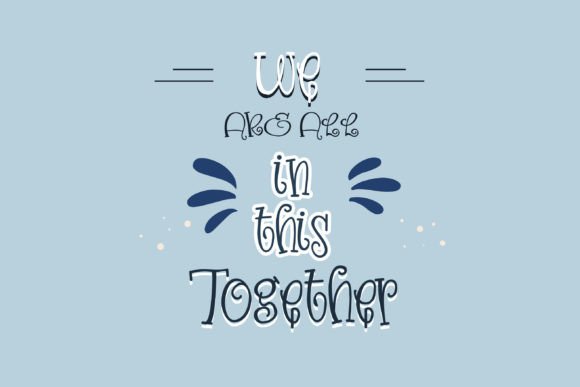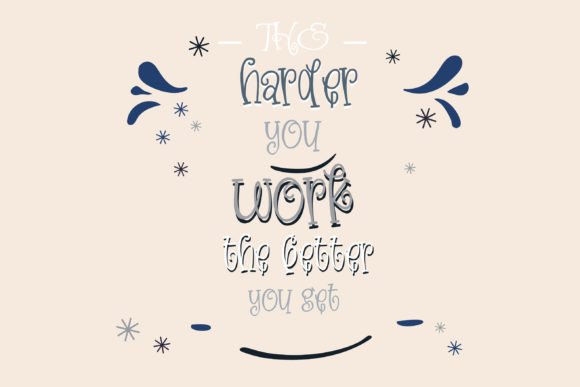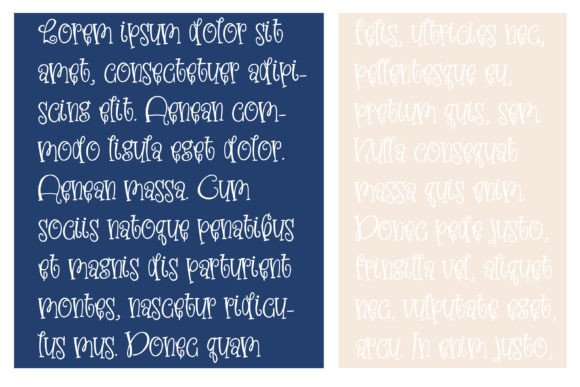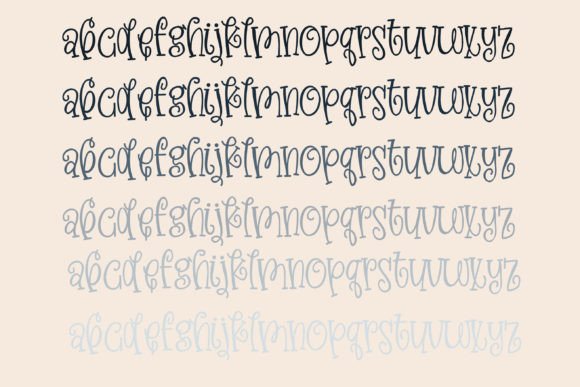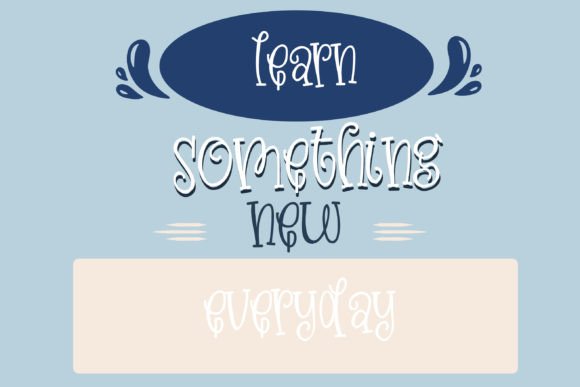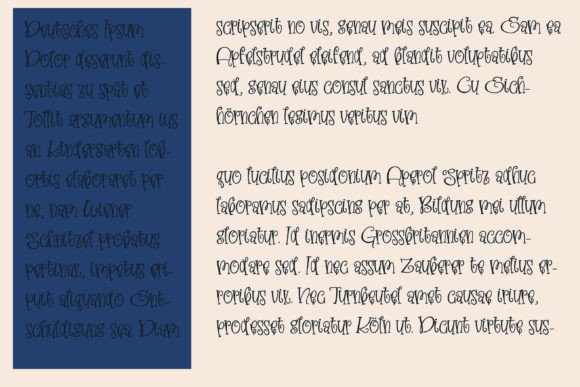
Aphantic Font: A Fun and Whimsical Hand-Crafted Serif for Designers and Crafters
Are you tired of using the same old fonts for your designs and crafts? Look no further than the Aphantic Font, a hand-crafted serif that’s sure to add a touch of whimsy and fun to your projects. In this article, we’ll take a closer look at what makes this font so special, and how you can use it to take your designs to the next level.
A hand-crafted font is a font that is designed to look like it was written by hand. It’s a type of font that’s often used for invitations, greeting cards, and other items where a personal touch is desired. Handwritten fonts can be either formal or informal, and they can be used for a variety of purposes. They add a level of warmth and personality to a design that’s hard to achieve with more traditional fonts.
Introducing Aphantic Font
The Aphantic Font is a beautiful example of a hand-crafted serif font. It’s a fun and whimsical font with squat lettering and a few curls throughout. The font has a playful, informal feel that’s perfect for designers and crafters who want to add a touch of personality to their work. Whether you’re creating invitations, greeting cards, or other crafts, the Aphantic Font is sure to make your projects stand out.
Characteristics of Aphantic Font
So what makes the Aphantic Font so special? Here are a few of its key characteristics:
- Hand-crafted look: The Aphantic Font has a distinctly hand-crafted look that’s perfect for designers and crafters who want to add a personal touch to their work.
- Serif design: The font features a classic serif design, with small lines or flourishes at the ends of the letters.
- Squat lettering: The letters in the Aphantic Font are a bit on the squat side, giving the font a playful, informal feel.
- Curls and flourishes: The font features a few curls and flourishes throughout, adding to its whimsical, hand-crafted feel.
Uses for Aphantic Font
So what can you use the Aphantic Font for? The possibilities are endless! Here are a few ideas to get you started:
- Invitations: The Aphantic Font is perfect for creating invitations for parties, weddings, and other special events.
- Greeting cards: The font is also great for creating greeting cards for birthdays, holidays, and other occasions.
- Crafts: The Aphantic Font can be used for a variety of crafts, including scrapbooking, journaling, and more.
- Signs and displays: The font can also be used to create signs and displays for businesses, events, and other purposes.
Tips for Using Aphantic Font
Here are a few tips for using the Aphantic Font in your designs:
- Keep it simple: Don’t be afraid to keep things simple when using the Aphantic Font. The font is designed to be easy to read, so don’t feel like you need to add a lot of extra embellishments.
- Experiment with colors: The Aphantic Font looks great in a variety of colors, so don’t be afraid to experiment and find the perfect color for your design.
- Pair it with other fonts: The Aphantic Font can be paired with other fonts to create a unique and interesting look. Try pairing it with a sans-serif font for a fun and modern contrast.
The Aphantic Font is a fun and whimsical hand-crafted serif that’s perfect for designers and crafters who want to add a touch of personality to their work. With its squat lettering, curls, and flourishes, this font is sure to make your projects stand out. Whether you’re creating invitations, greeting cards, or other crafts, the Aphantic Font is a great choice. So why not give it a try and see what you can create?